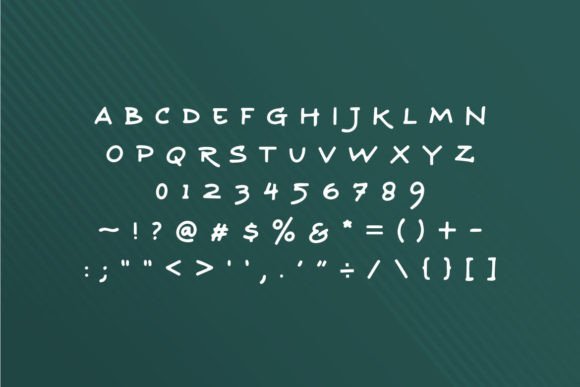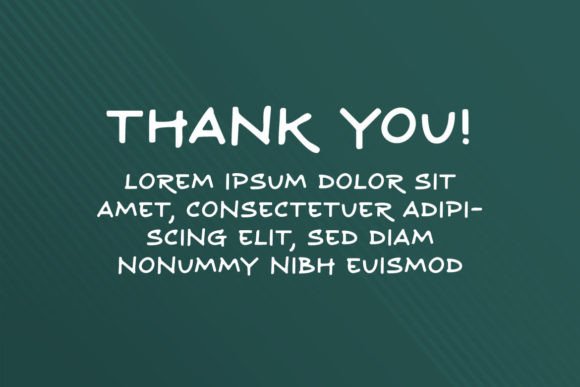
Introducing Gerald Font: Elevate Your Designs with a Unique Handwriting Style
In the world of typography, fonts play a crucial role in conveying the tone and personality of a design. For designers and crafters looking to add a touch of personality to their work, Gerald Font is an excellent choice. This display font, featuring capital letters, boasts a distinctive handwriting style that can instantly elevate your designs and make them stand out.
What is Gerald Font?
Gerald Font is a display font that is characterized by its handwriting style, making it perfect for adding a personal touch to various design projects. The font features capital letters, which give it a unique and elegant look. With Gerald Font, you can add a touch of sophistication and whimsy to your designs, making it an excellent choice for a wide range of applications.
Uses of Gerald Font
One of the best things about Gerald Font is its versatility. This font can be used in a variety of design projects, including:
- Children’s books: Add a playful touch to your children’s book with Gerald Font. The font’s handwriting style is perfect for storybooks, picture books, and early readers.
- Posters: Create eye-catching posters with Gerald Font. The font’s unique style makes it perfect for promoting events, products, or services.
- Advertisements: Use Gerald Font to add a touch of personality to your advertisements. The font’s elegant look makes it perfect for print and digital ads.
- Social media content: Elevate your social media content with Gerald Font. The font’s handwriting style is perfect for creating engaging and shareable content.
- Logos: Create a unique and memorable logo with Gerald Font. The font’s distinctive style makes it perfect for branding and identity design.
Benefits of Using Gerald Font
There are several benefits to using Gerald Font in your design projects. Some of the advantages of this font include:
- Unique style: Gerald Font’s handwriting style sets it apart from other fonts, making it perfect for designers looking to add a touch of personality to their work.
- Versatility: The font’s versatility makes it suitable for a wide range of design projects, from children’s books to logos.
- Elegant look: Gerald Font’s elegant look makes it perfect for designs that require a touch of sophistication.
- Easy to read: Despite its unique style, Gerald Font is easy to read, making it perfect for body text and headings.
Tips for Using Gerald Font
To get the most out of Gerald Font, here are some tips to keep in mind:
- Use it sparingly: While Gerald Font is a beautiful font, it’s best to use it sparingly to avoid overwhelming the reader. Use it for headings, titles, or key phrases to add emphasis.
- Pair it with other fonts: Gerald Font pairs well with other fonts, especially sans-serif fonts. Experiment with different font combinations to find the perfect pairing.
- Adjust the size: Gerald Font’s size can greatly impact its readability. Experiment with different sizes to find the perfect balance between style and readability.
In conclusion, Gerald Font is a unique and versatile display font that can elevate your designs and make them stand out. With its handwriting style and elegant look, it’s perfect for a wide range of design projects, from children’s books to logos. By following the tips outlined above, you can get the most out of Gerald Font and create stunning designs that capture the attention of your audience.